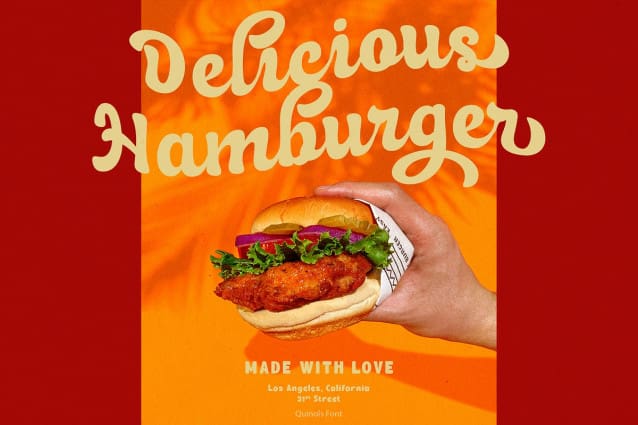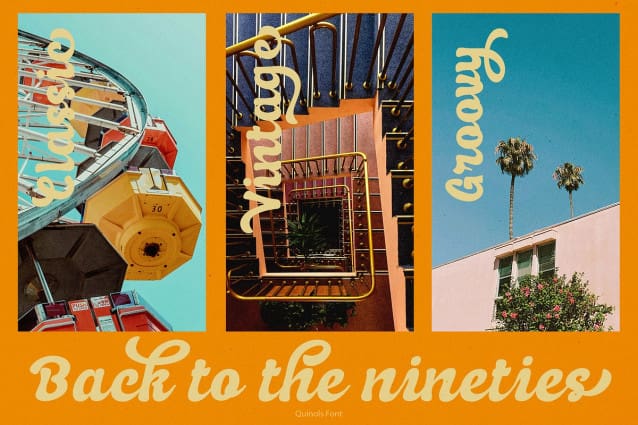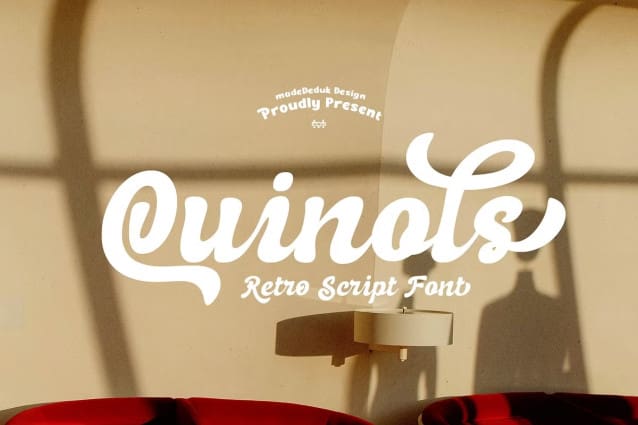
Quinols Retro Script Font
Quinols Retro Script Font comes with curly style with a lot alternative and ligature. This font perfect for poster design, book covers, merchandise, fashion brands, advertising, magazines, album covers, wedding invitation and more.